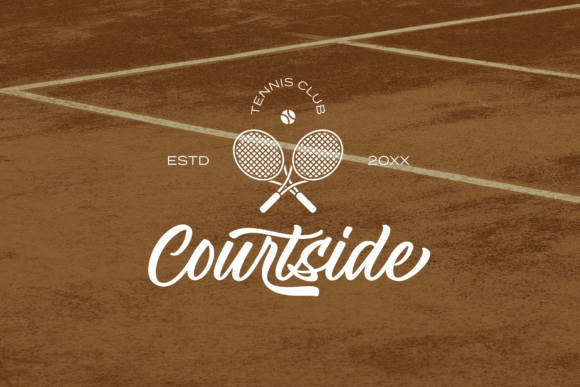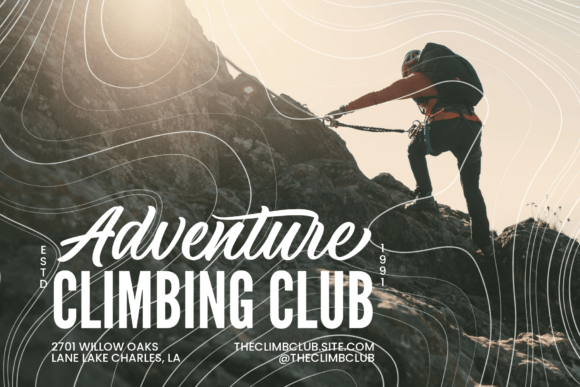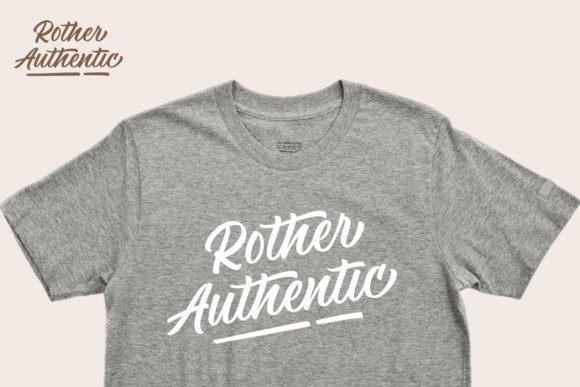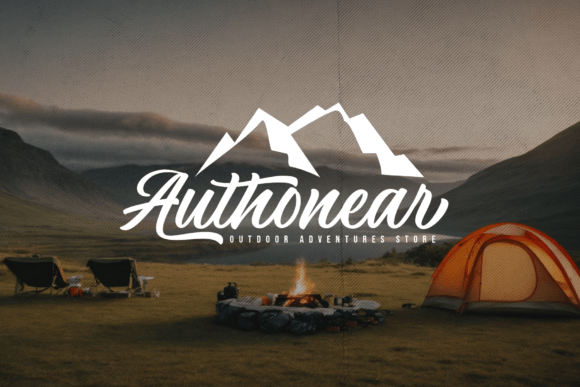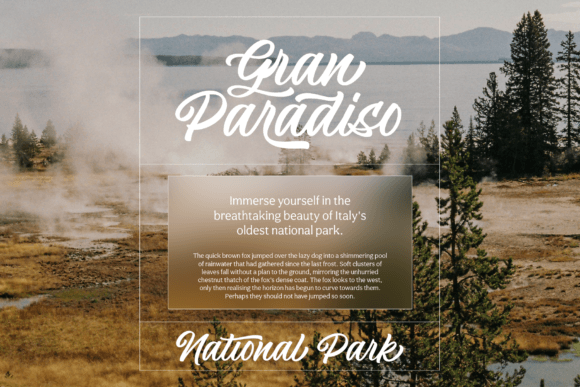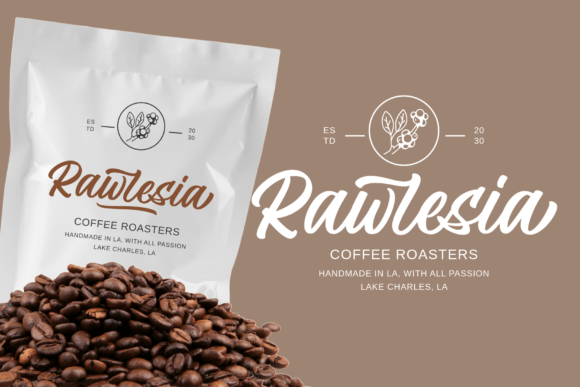
Discover the Timeless Charm of Autho Youthful Font
In the world of typography, few fonts manage to capture the essence of elegance and sophistication as effortlessly as Autho Youthful. This handwritten font is a masterstroke of design, boasting a unique blend of classic charm and modern flair that is sure to elevate any design project. Whether you’re a seasoned designer or a crafty DIY enthusiast, Autho Youthful is an excellent choice for adding a personal touch to your creations.
The Elegance of Handwritten Typography
Autho Youthful’s handwritten style is what sets it apart from other fonts. Each letter, alternate, swash, and ligature has been carefully crafted to exude a sense of refinement and poise. The font’s elegant strokes and fluid connections create a sense of movement and energy, making it perfect for designs that require a touch of sophistication. From logos and invitation cards to social media graphics and more, Autho Youthful brings a level of class and distinction that is hard to match.
One of the best things about Autho Youthful is its versatility. This font is suitable for a wide range of design projects, including:
- Logos: Create a lasting impression with a logo that exudes elegance and sophistication. Autho Youthful’s unique style ensures that your brand stands out from the crowd.
- Invitation Cards: Add a touch of refinement to your invitation cards, making them perfect for weddings, parties, and other special occasions.
- Social Media Graphics: Elevate your social media presence with eye-catching graphics that showcase your brand’s personality.
- Stationery: Create beautiful stationery, including letterheads, envelopes, and more, that reflect your brand’s style and sophistication.
What Makes Autho Youthful So Special?
So, what makes Autho Youthful so special? Here are just a few reasons why designers and crafters love this font:
- Unique Character: Autho Youthful has a distinct personality that shines through in every letter and stroke.
- Timeless Appeal: Unlike trendy fonts that quickly go out of style, Autho Youthful has a timeless charm that ensures your designs remain stylish for years to come.
- Highly Versatile: This font can be used in a variety of design projects, from logos and branding to social media graphics and more.
- Elegant and Refined: Autho Youthful’s elegant strokes and fluid connections create a sense of sophistication and refinement.
Tips for Using Autho Youthful in Your Designs
To get the most out of Autho Youthful, here are a few tips to keep in mind:
- Experiment with Different Sizes: Autho Youthful looks great in a variety of sizes, from large headings to smaller body text.
- Play with Color: The font’s elegant style pairs well with a range of colors, so don’t be afraid to experiment and find the perfect combination for your design.
- Mix and Match: Combine Autho Youthful with other fonts to create a unique and eye-catching design.
In conclusion, Autho Youthful is a truly special font that offers a unique blend of elegance, sophistication, and timeless charm. Whether you’re a designer, crafty DIY enthusiast, or simply someone who appreciates beautiful typography, this font is sure to impress. With its versatility, unique character, and refined style, Autho Youthful is the perfect choice for your next design project. So why wait? Discover the masterstroke of design that is Autho Youthful and elevate your creations to new heights.